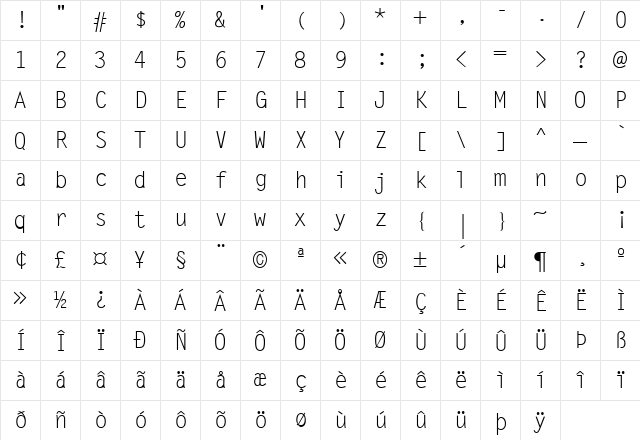
Simplicity Regular
Simplicity Family
Design Context for Simplicity
Simplicity is a composed and adaptable typeface that performs quietly and consistently across a wide range of design contexts.